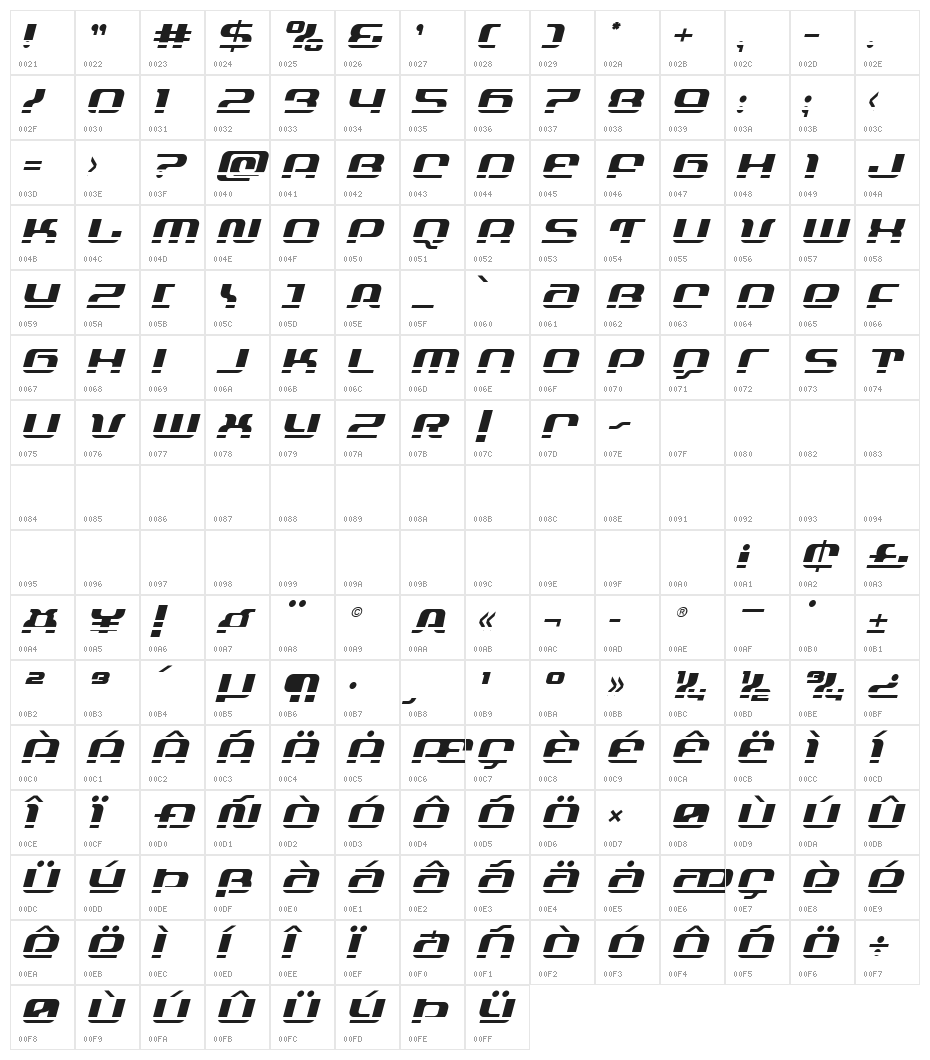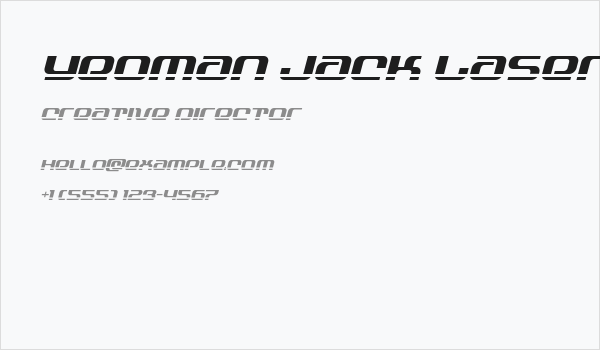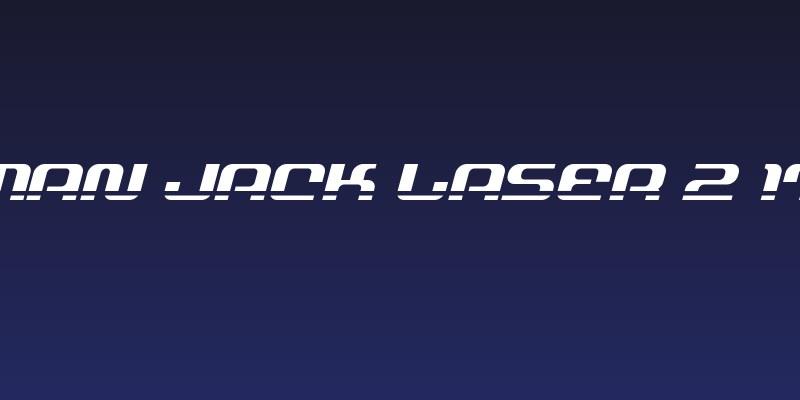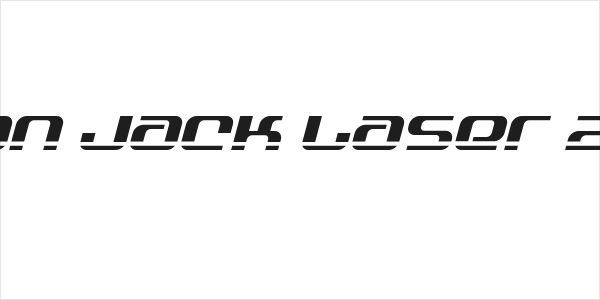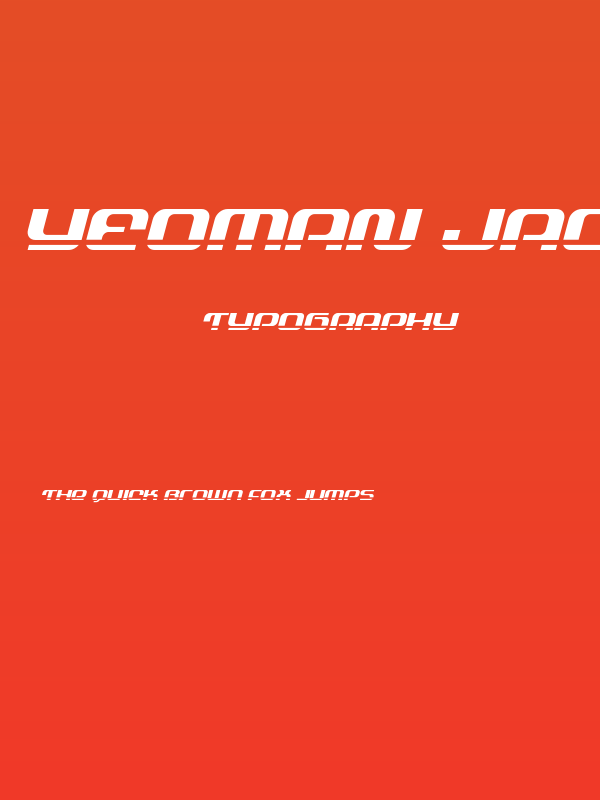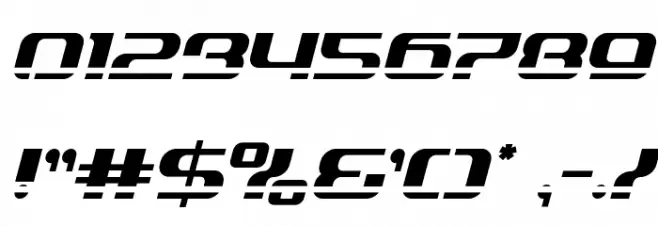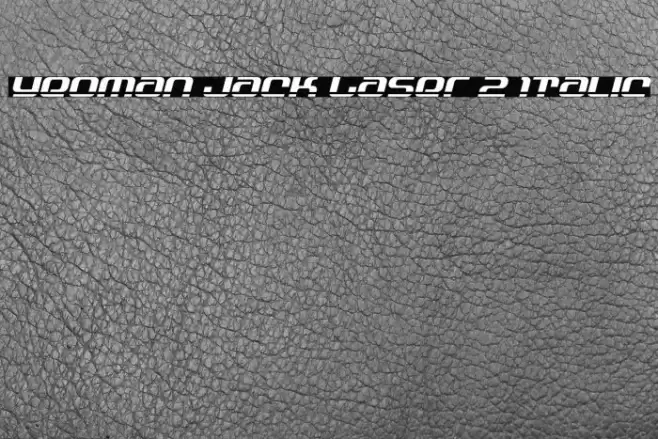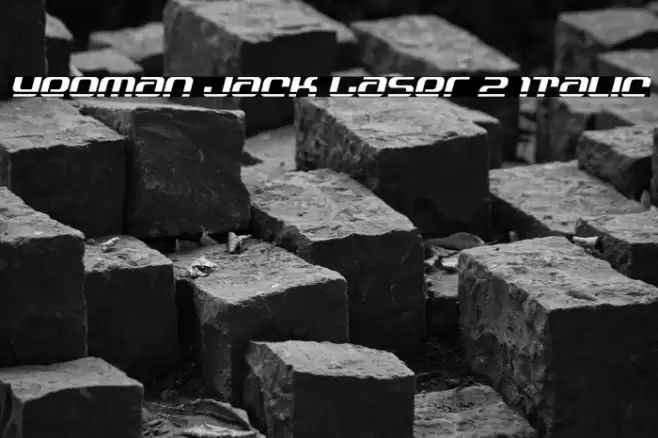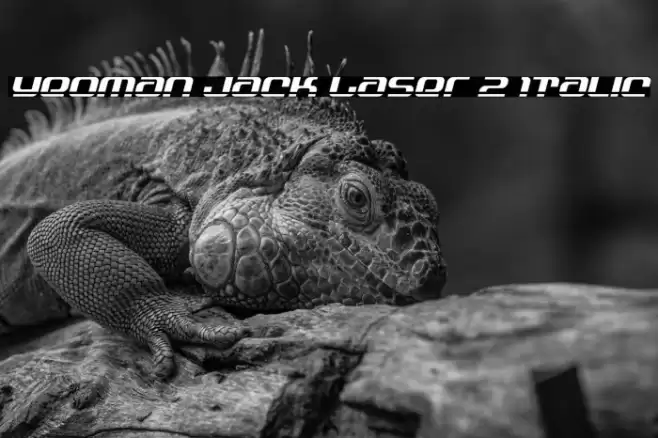
Yeoman Jack Laser 2 Italic Font
Yeoman Jack Laser 2 Italic Description
This font features a futuristic and dynamic design with a distinct italic slant, giving it a sense of motion and speed. The characters are constructed with a combination of solid and cut-out segments, creating a stencil-like appearance. This style is reminiscent of digital or technological themes, making it ideal for projects that require a modern and edgy look. The uppercase and lowercase letters maintain a consistent style, with numerals and special characters following the same design principles. The overall aesthetic is bold and impactful, suitable for attention-grabbing headlines or branding.
| Proposed Projects | Ideal for technology branding, sci-fi movie posters, video game titles, and futuristic event flyers. |